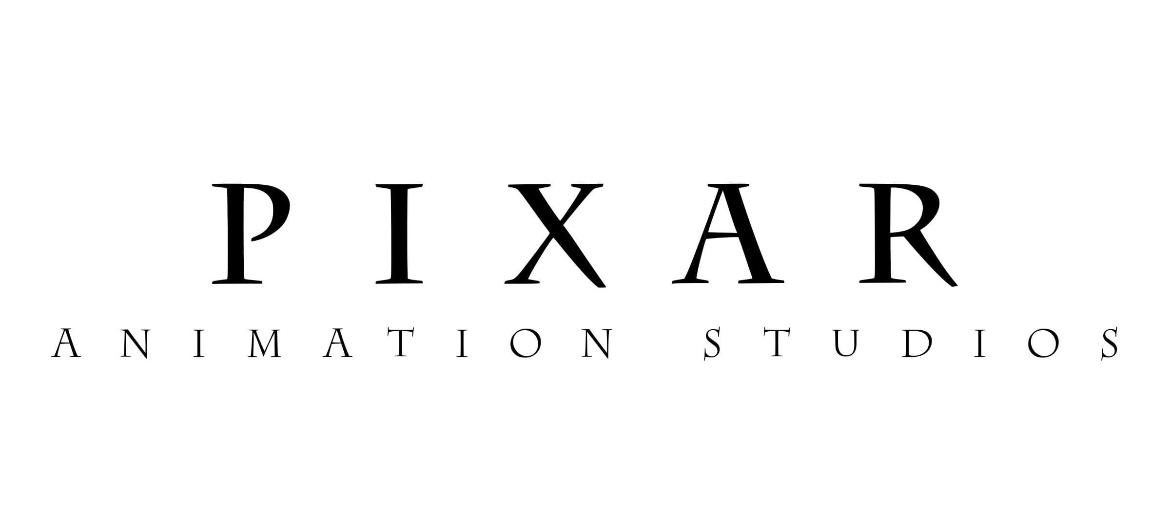
Pixar Font
What Font Does Pixar Use?
The Pixar font is best represented by DS Century Capitals, a clean and elegant serif typeface designed by Dubina Nikolay. Its tall, refined characters and classic cinematic style closely resemble the lettering seen in Pixar’s iconic logo. Although not an official Pixar typeface, DS Century Capitals is widely used as the closest fan-made alternative. The font is free for personal use, making it a great choice for Pixar-themed designs, tributes, and creative projects.
About Pixar
Pixar Animation Studios, founded in 1986, is a world-renowned American animation studio celebrated for its groundbreaking storytelling and pioneering use of computer-generated animation. The studio has produced some of the most beloved animated films of all time, including Toy Story, Monsters, Inc., Finding Nemo, Ratatouille, and Inside Out.
Known for its emotional depth, technical innovation, and imaginative world-building, Pixar has set new standards in animation and family entertainment. Its sleek visual identity—featuring the iconic Luxo Jr. lamp and polished serif lettering—reflects the studio’s commitment to creativity, excellence, and cinematic artistry.